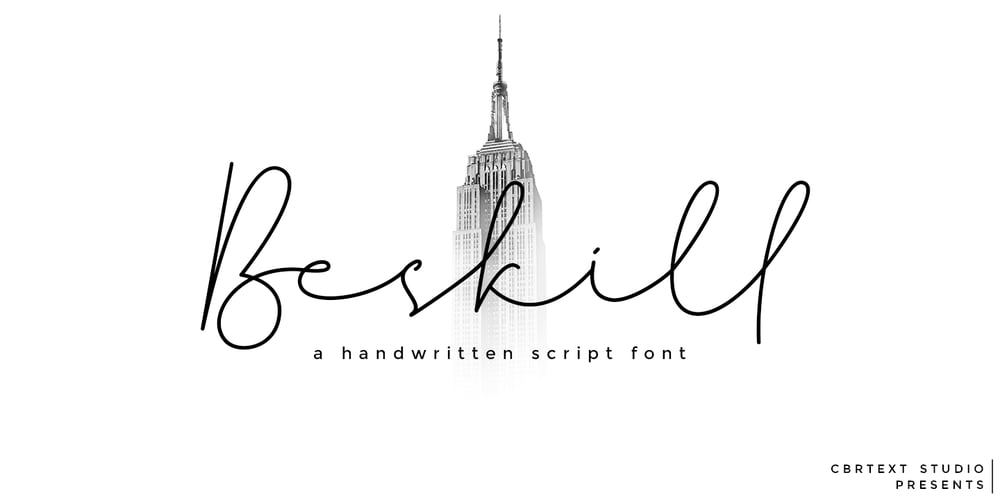
Beskill Font Family was designed by Muhammad Khoirul Amal and published by CBRTEXT Studio. Beskill contains 1 styles and family package options. Beskill is a modern handwritten script font. Every hand stroke, we keep it simple. The ligature is also available which gives a beautiful impression on this font.This font is perfect for your project or branding such as quotes, weddings, headings, designs, logos, invitations, and more!Thank you!